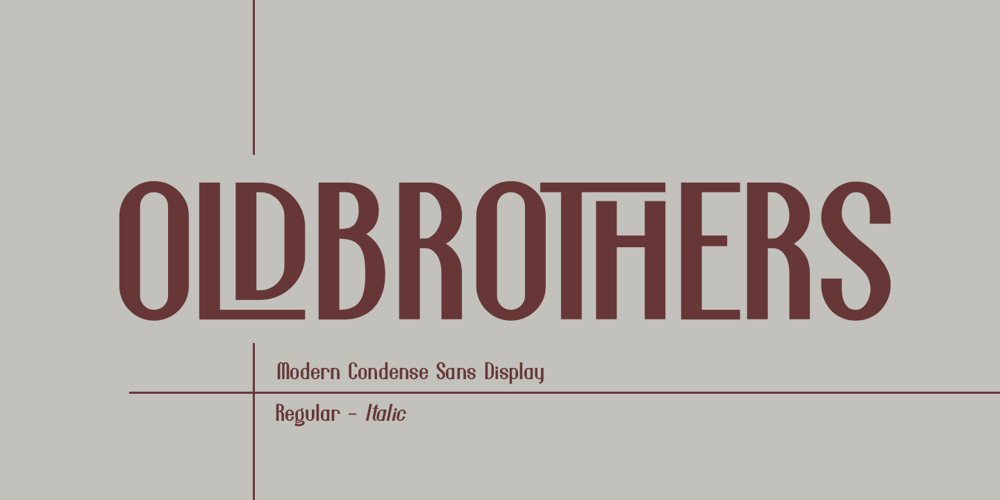
Oldbrothers Font Family was designed by Sarwo Edhi Prayitno and published by Haksen. Oldbrothers contains 2 styles and family package options. Oldbrothers is a Bold elegant modern condense sans style with upper and lowercase feel nice balanced. Its wide range of uppercase ligatures allow versatile design options and works perfectly for headlines, logos, posters, packaging, T-shirts, postcards and much more. Font Features : Regular and Italic version Character set A-Z Ligatures in Uppercase Numerals & Punctuation Accented Characters Multiple Languages Supported Format File: OTF Recommended to use in Adobe Illustrator or Adobe Photoshop with opentype feature. How to access Ligatures Characters? Open glyphs panel : In Adobe Photoshop choose tool Window >> glyphs In Adobe Illustrator choose tool Type >> glyphs If you have questions, just send me a message and I’m glad to help. Have a great day,Haksen Std